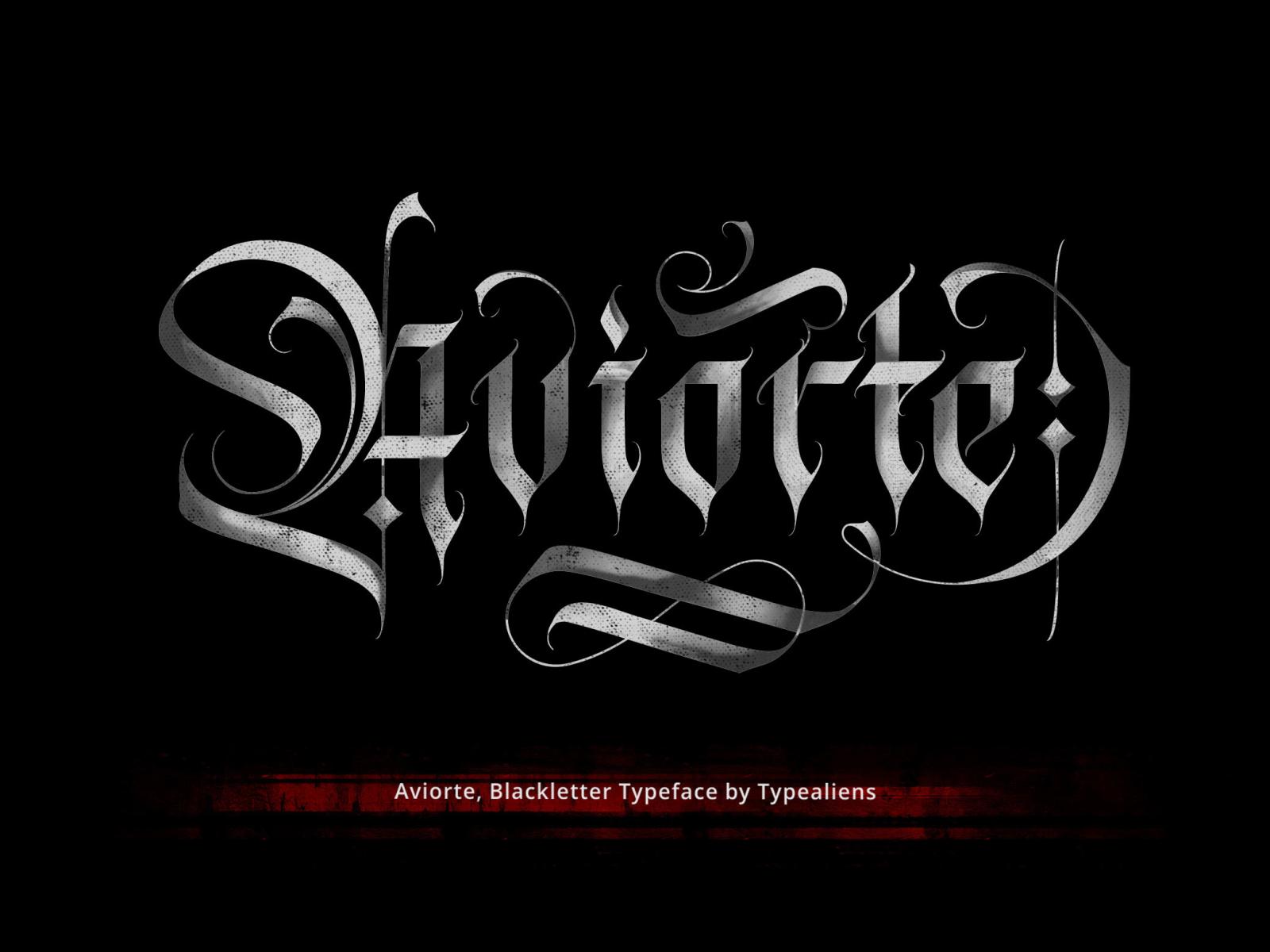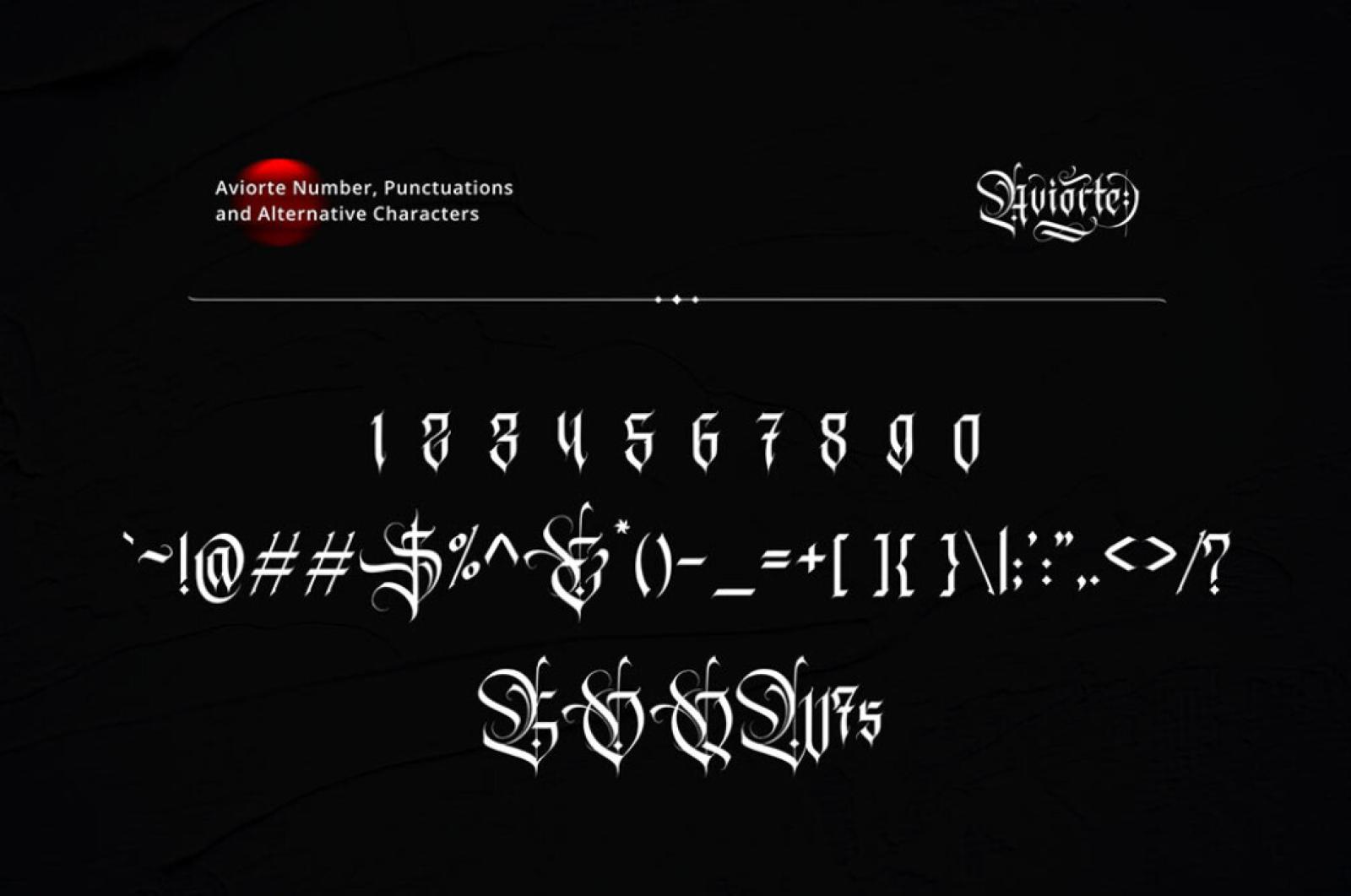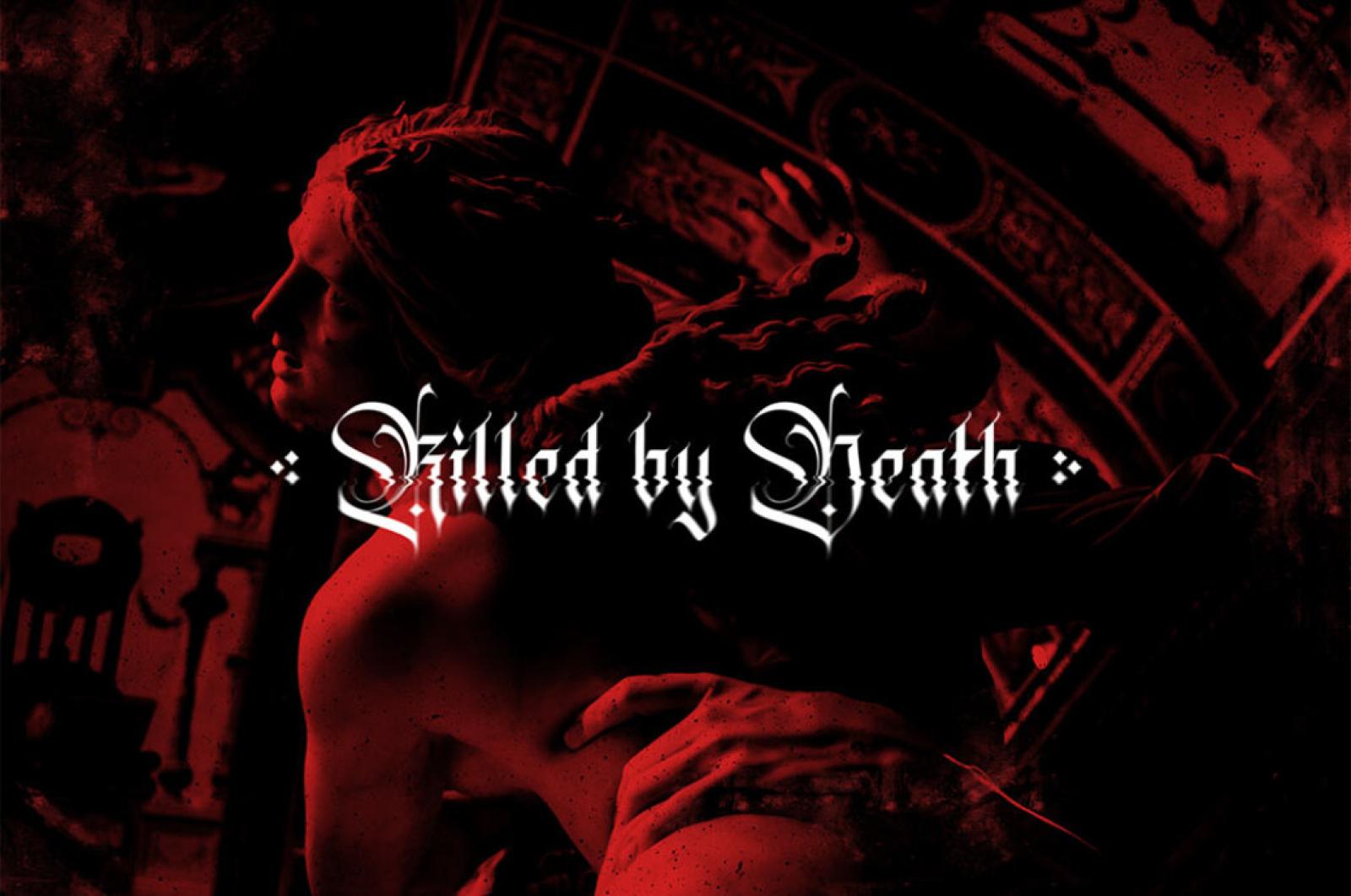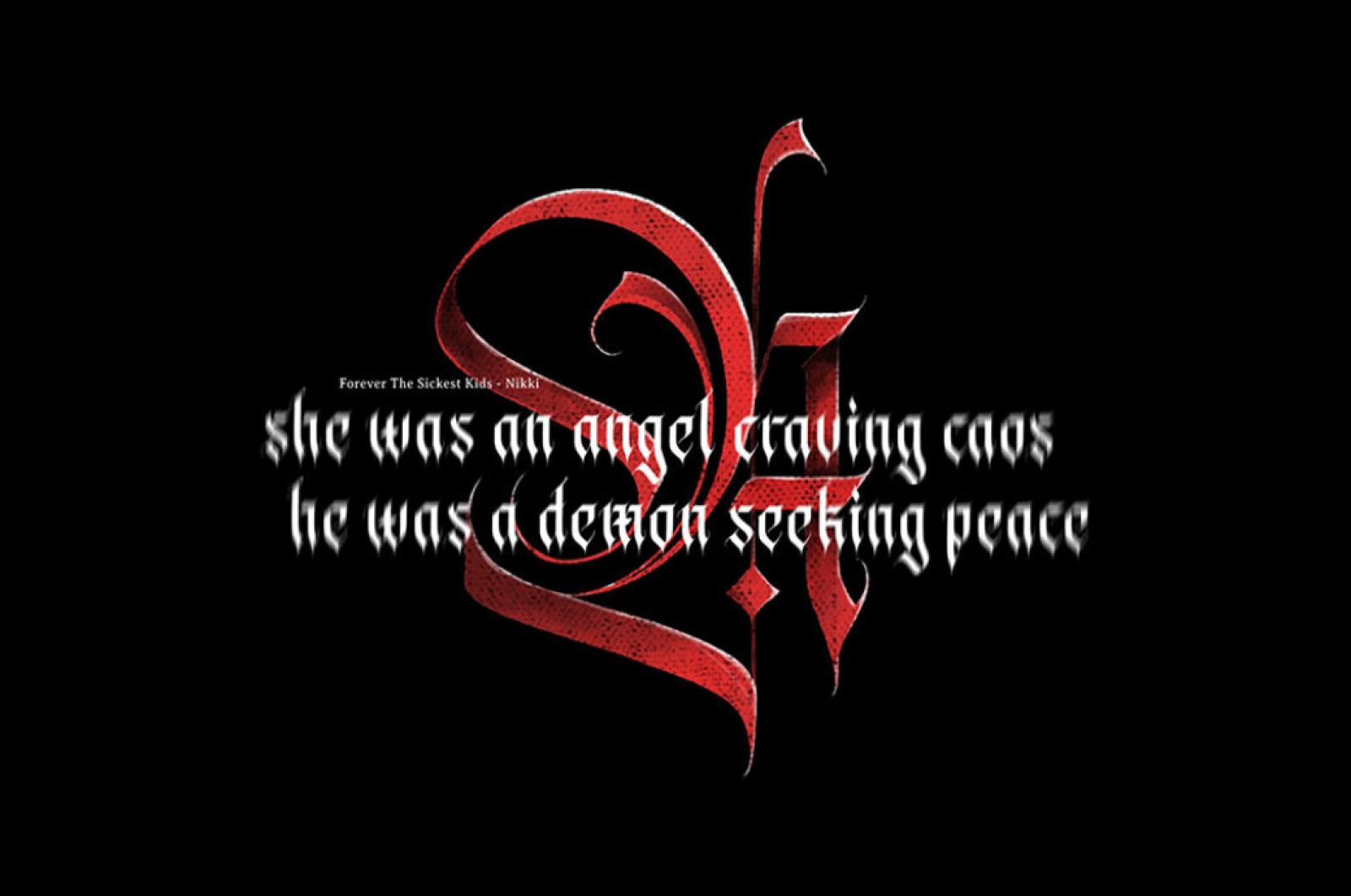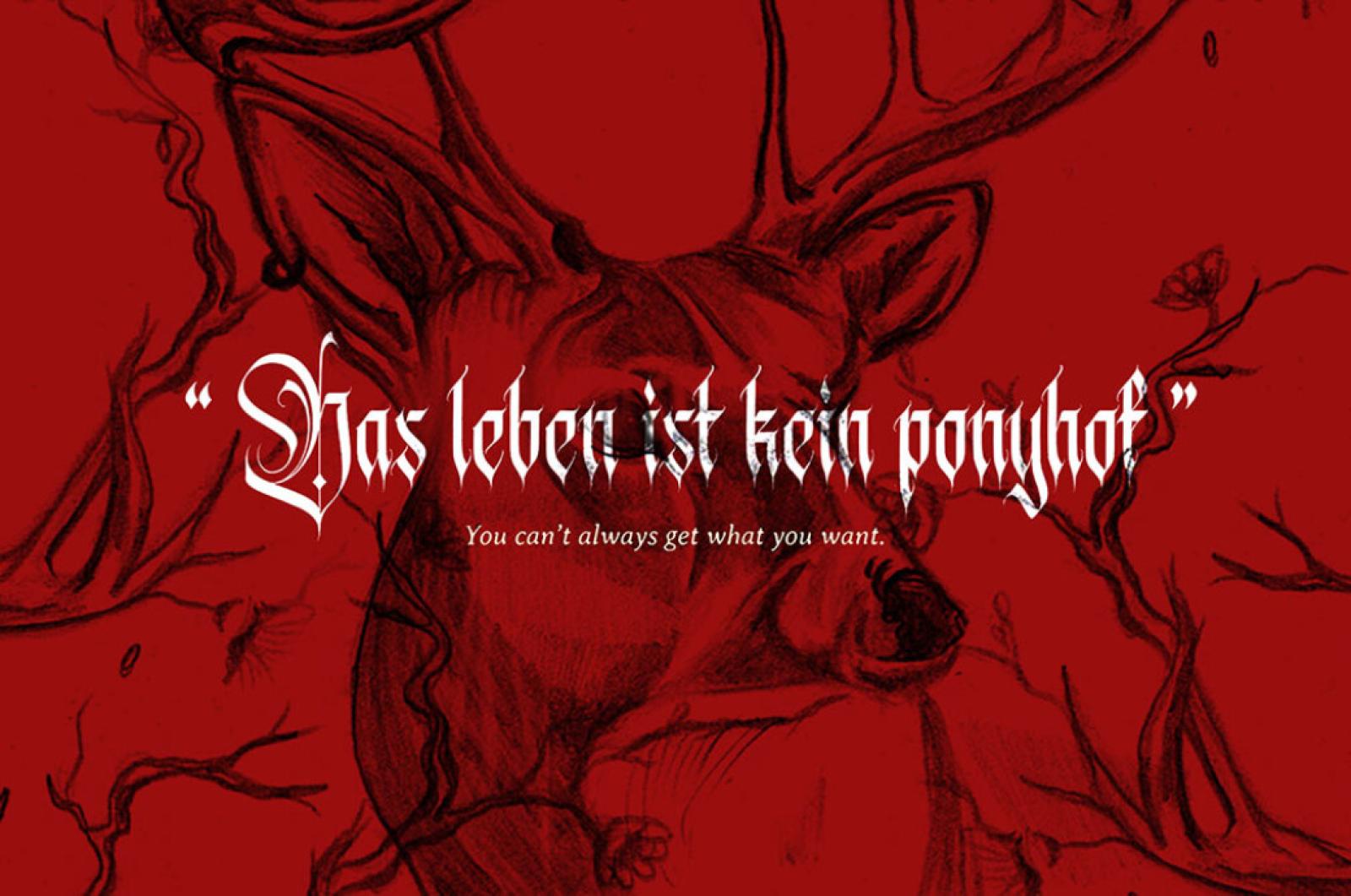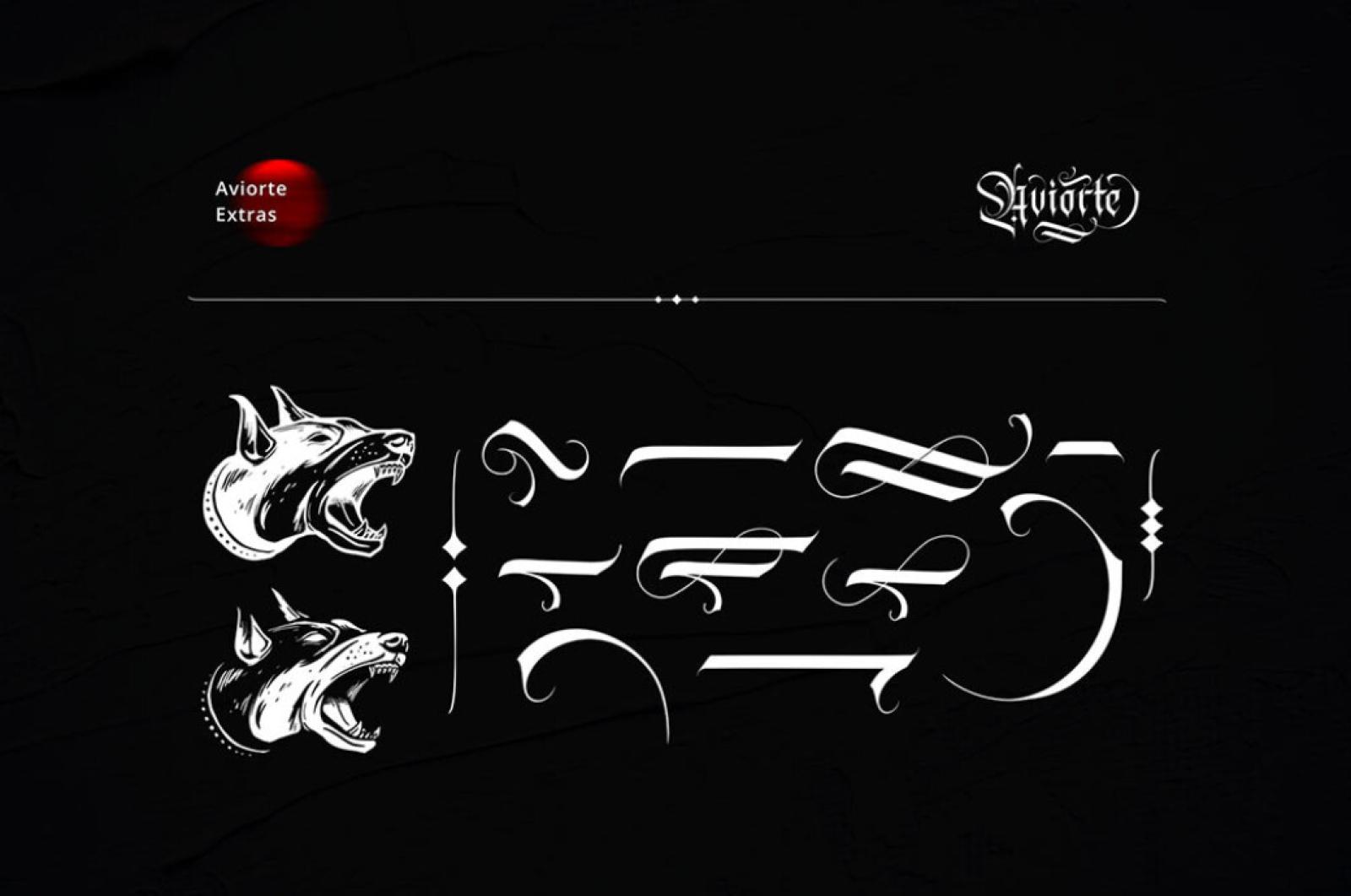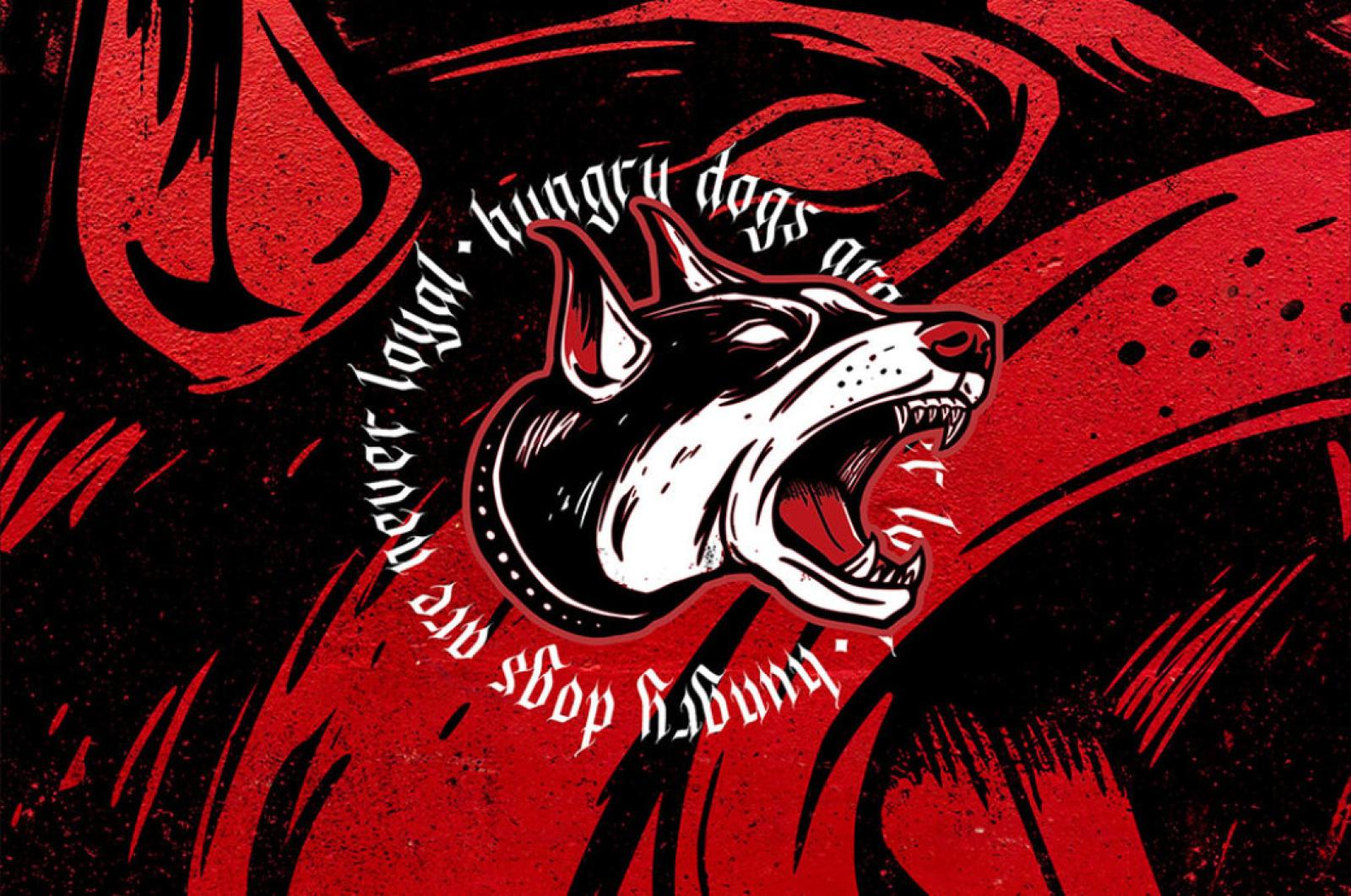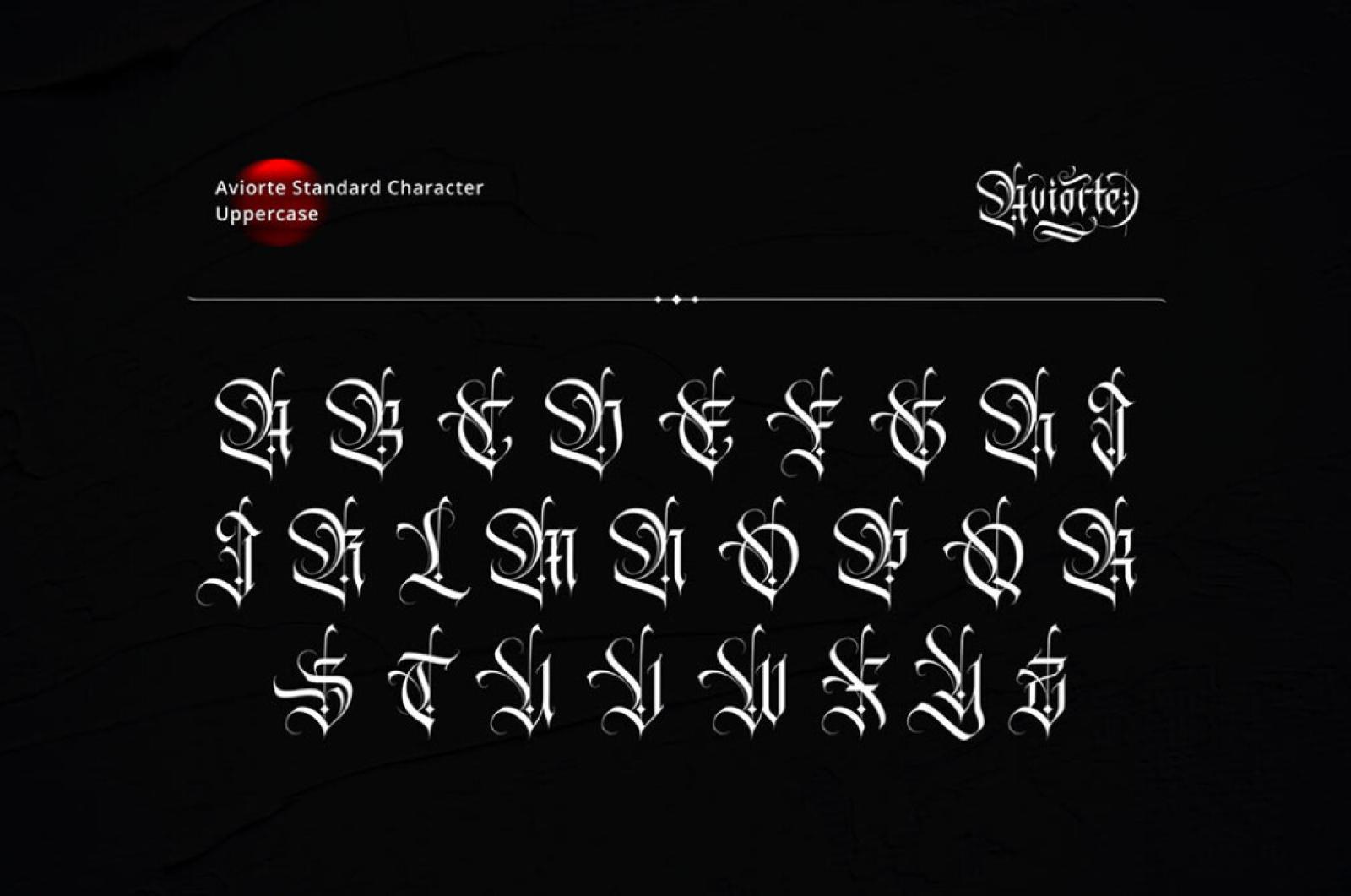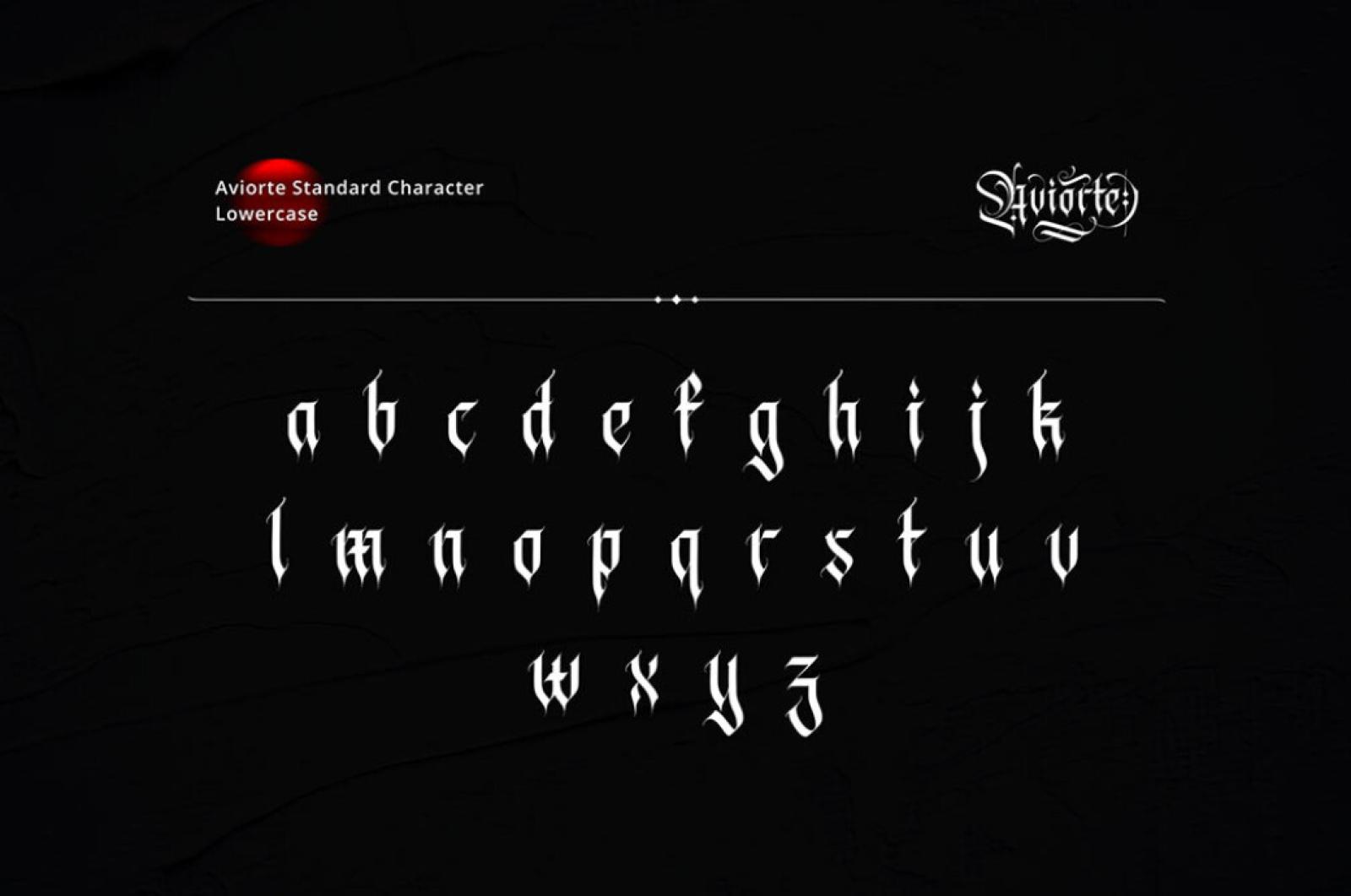
Aviorte Blackletter Font
Turn any text into the historical heritage of the 17th century with a suitable blackletter font and applied themed elements. Watch medieval motives playing by the modern rules in every Gothic character!
Aviorte is an elegant, clean, and artistic blackletter font. Packed with the diverse uppercase letters, numerals, themed punctuation marks, you can always make your composition look very beautiful and decorative. Multilanguage support coming in the package as well, allows you to design & translate messages for any audience. As a little bonus to complete the look: swashes, drawn Dobermann heads, ornamental elements. The font is ready to be your title, headline, or logotype, badge, t-shirt design or branding project.